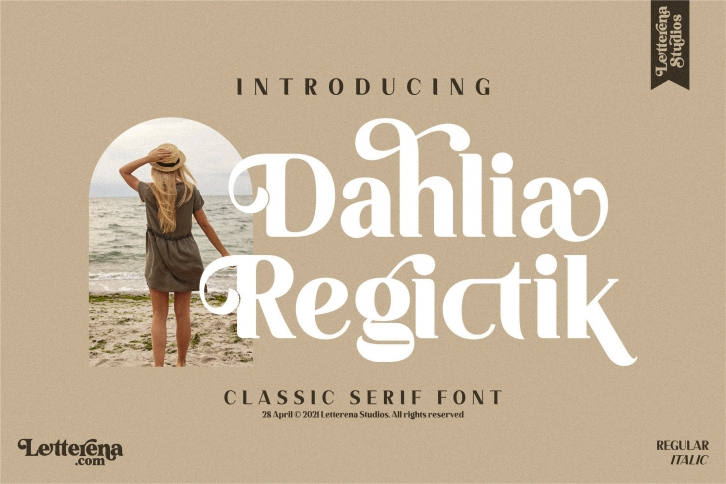
Dahlia Regictik is a beautiful font that was designed by Letterena Studios. It's a great choice for designers and creatives who need such a font. It was released on April 28, 2021 and the file size is 6.29 MB. Dahlia Regictik may give a more youthful, expressive and casual look to your project. It is a very beautiful, refined, elegant, and high-quality font.